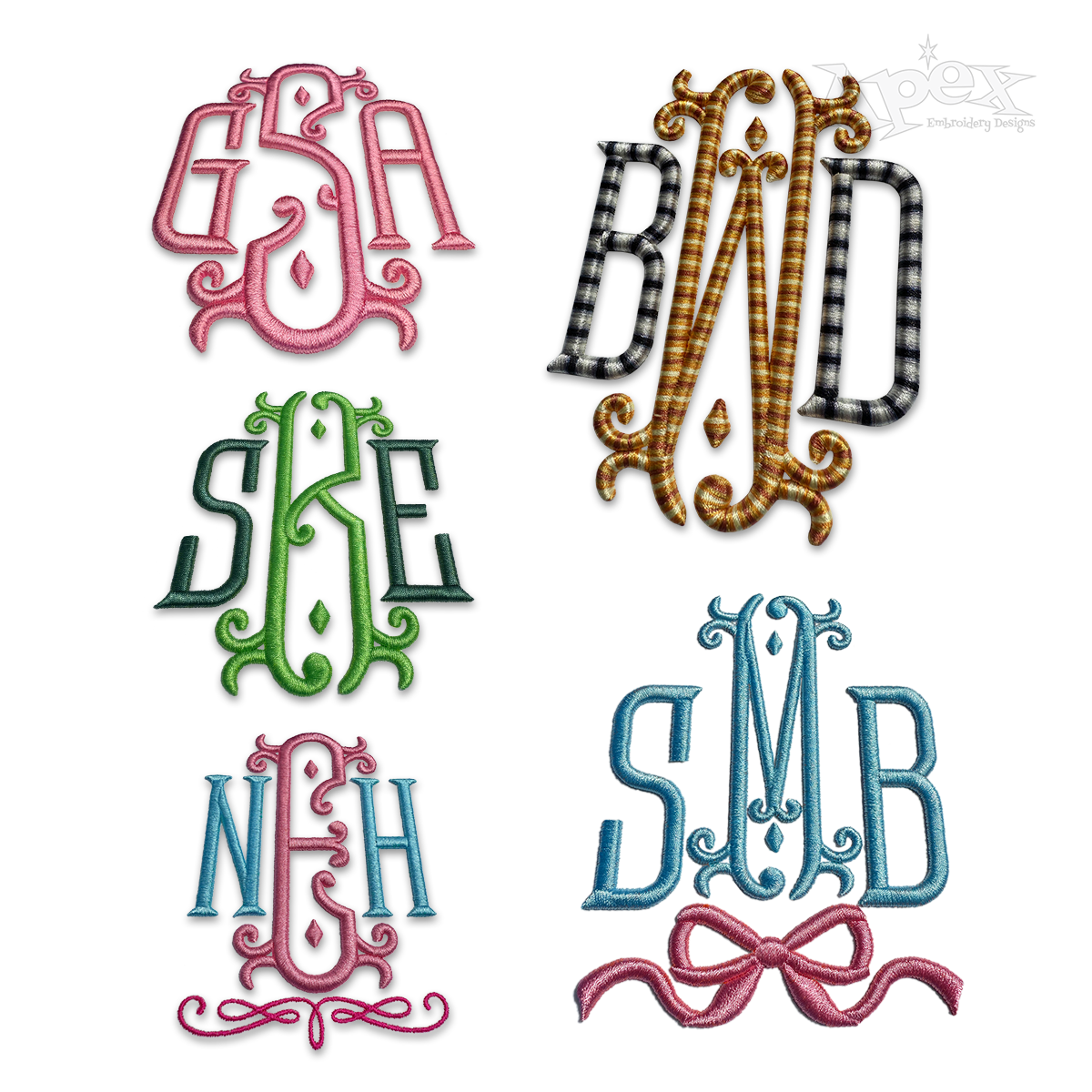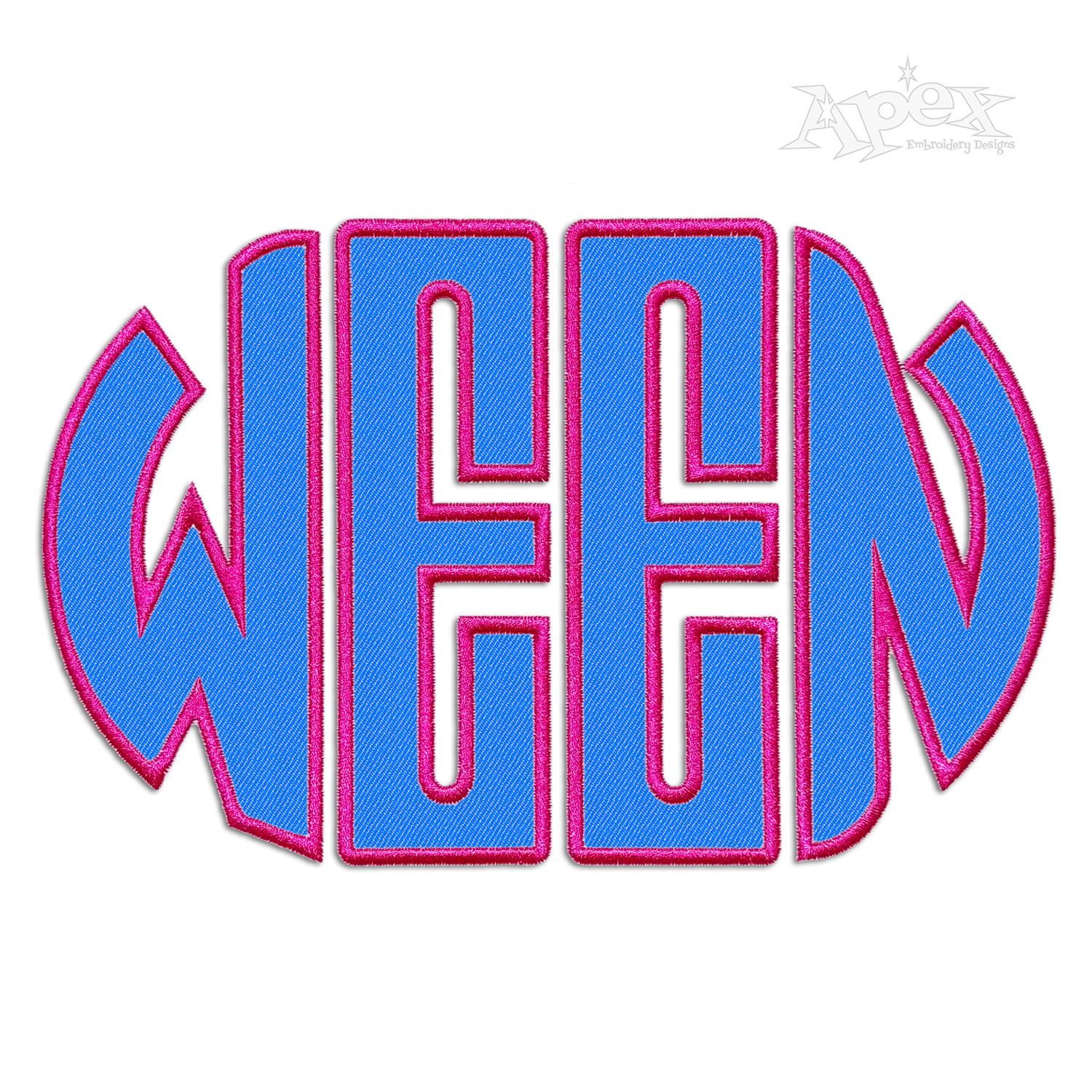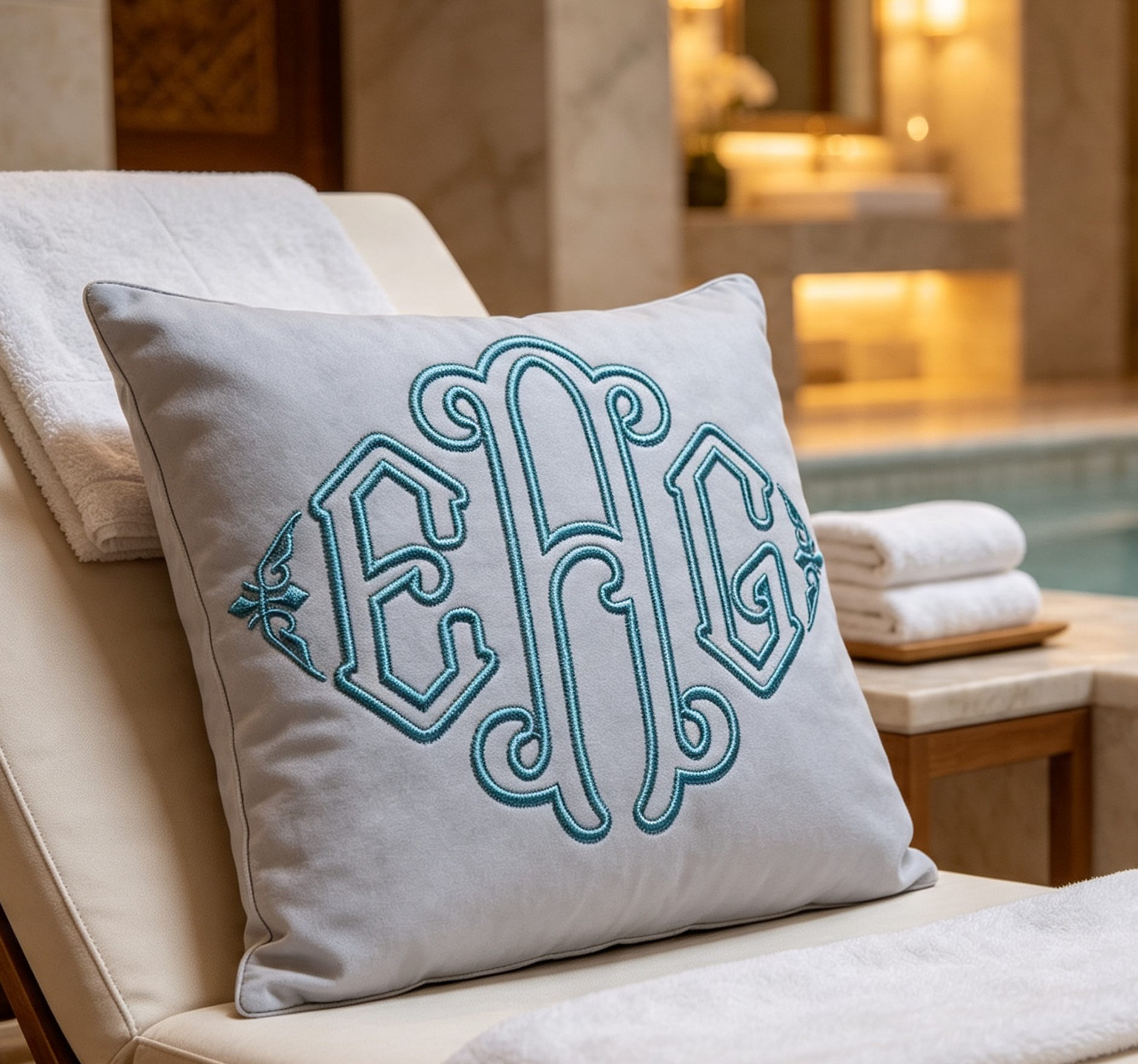
If you are choosing embroidery monogram fonts, you are probably not looking for “just letters.” You need initials that stitch cleanly, read clearly, and match the feeling of the item. Apex gives you monogram styles for almost every kind of project: classic towels, baby blankets, bridal robes, boutique bags, school gifts, applique shirts, and bold personalized pieces.
Embroidery monogram fonts are digitized letter designs used to stitch initials onto fabric items such as towels, robes, bags, shirts, blankets, linens, and gifts. They can be single-letter, 3-letter, circle, applique, script, floral, stacked, split, or decorative styles, giving makers a ready-to-use way to personalize projects with clean, balanced machine embroidery lettering.
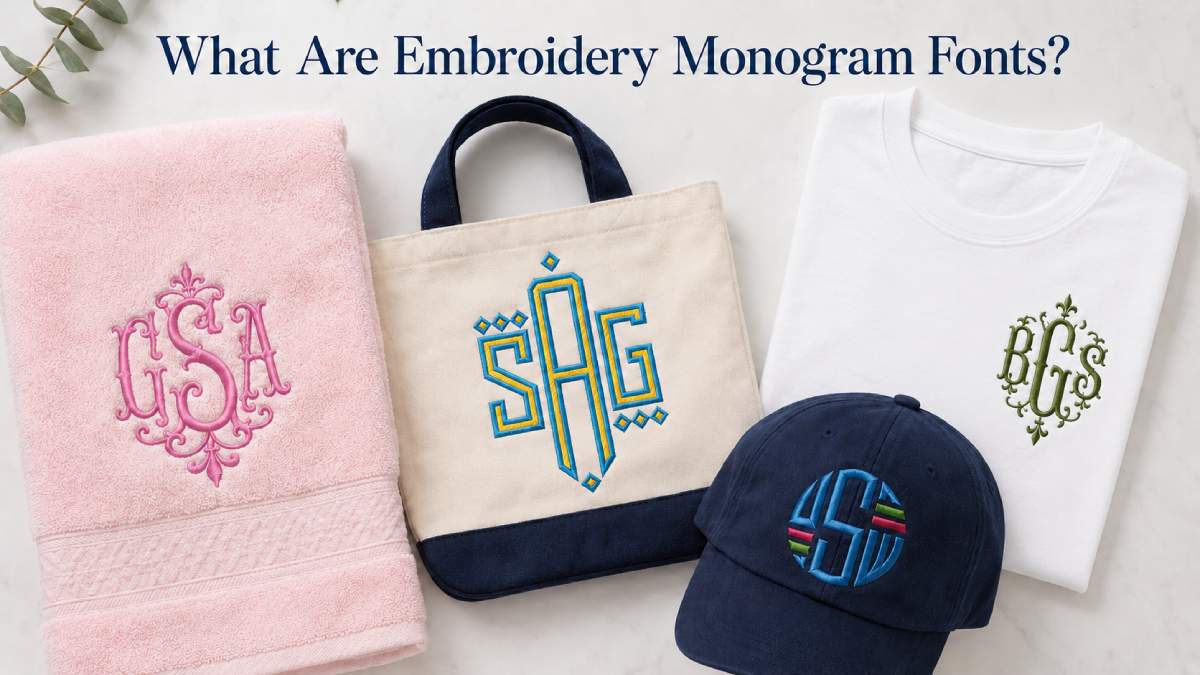
Monogram fonts are often grouped by how the initials are arranged:
Classic and interlocking monogram fonts are for projects that need a more traditional personalized look.
These are the monograms people expect to see on robes, bath towels, tote bags, linens, wedding gifts, family items, and keepsake pieces.
This group should not be framed as “only 3-letter monograms,” even though many interlocking designs work beautifully for that layout.
The main feature is the connected, polished shape. The letters feel designed together, not simply placed side by side.
Apex styles to feature here:
Cassidy 3-letter Interlocking Monogram Machine Embroidery,
Bold Vine Interlocking Monogram Embroidery Font,
Victoria Monogram Embroidery Font.
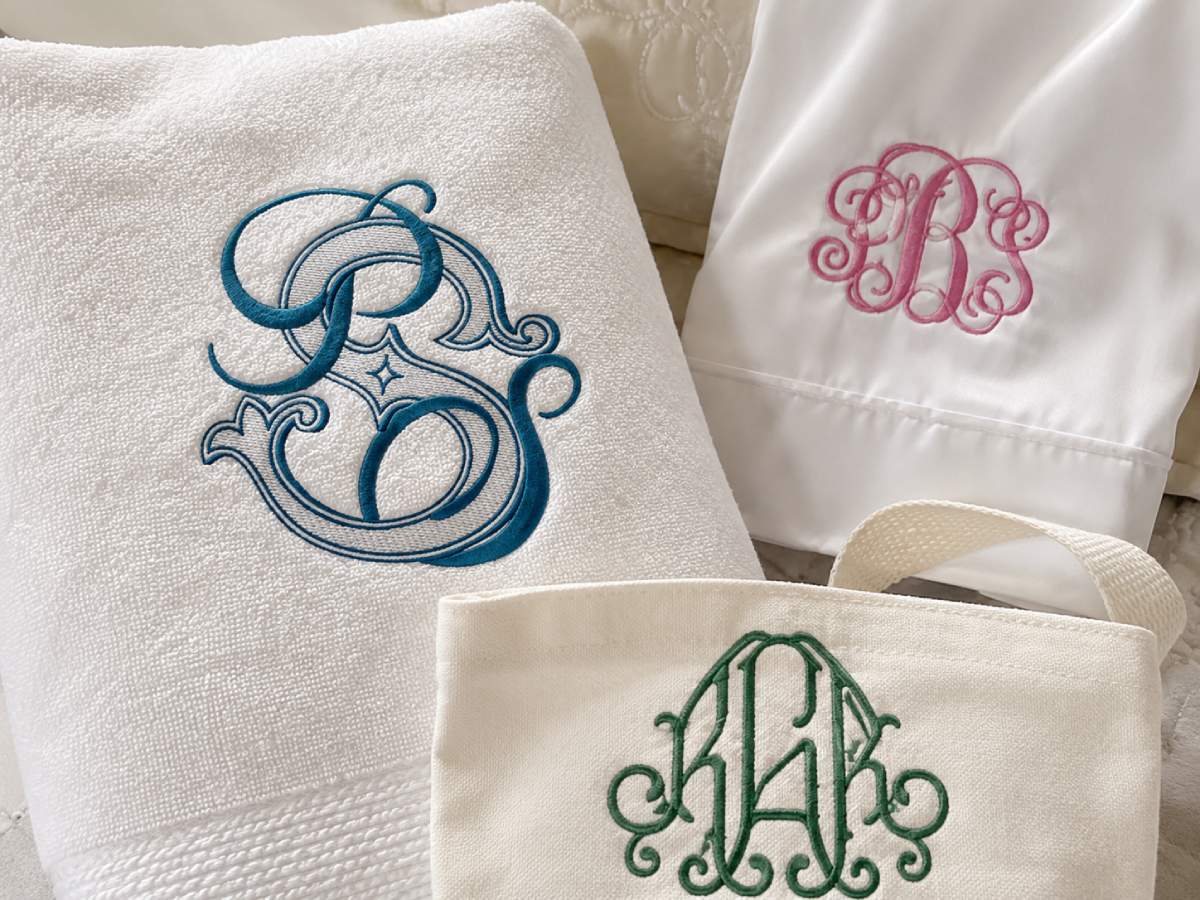
Circle monogram embroidery fonts are popular because they already have structure.
The round shape helps the initials feel centered and balanced, which makes them useful for bags, towels, shirts, backpacks, patches, school items, and boutique gifts.
This is one of the most practical groups in the Apex monogram collection. A circle layout is easy for customers to understand. They can picture where the initials go before they even choose thread colors.
Apex styles to feature here:
Round Modern Monogram Embroidery Font
Corin Circle Monogram Embroider Font
Tall Circle Monogram Embroidery Font
Round Monogram Accents Embroidery Font
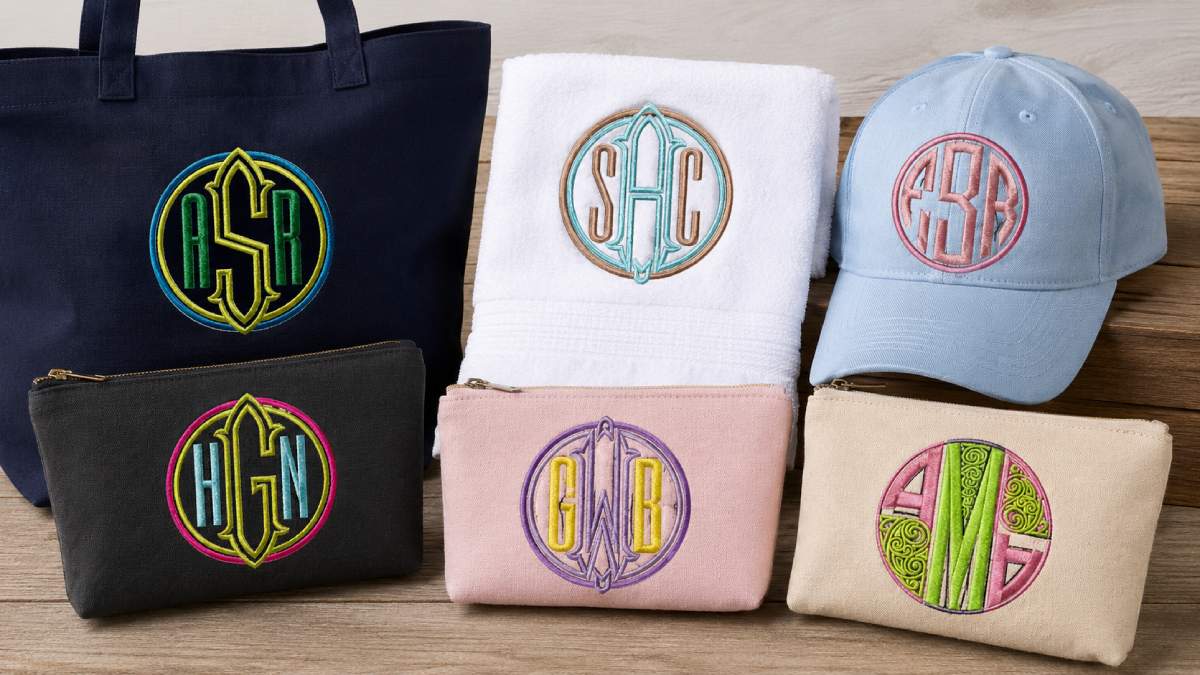
Applique monogram embroidery fonts are ideal when the letter needs to be larger, more colorful, or more playful.
Instead of filling the whole letter with thread, applique lets fabric become part of the design. That gives the maker room to use gingham, florals, polka dots, school colors, holiday prints, or baby-themed fabric.
This group works especially well for kids’ shirts, baby blankets, birthday outfits, beach towels, tote bags, nursery items, and boutique products. It is also useful when you want a large initial without making the design feel too heavy.
Apex styles to feature here:
Shirley Monogram Applique Embroidery Font
Nola Applique Embroidery Font
Boat Monogram Fill and Applique Embroidery Font
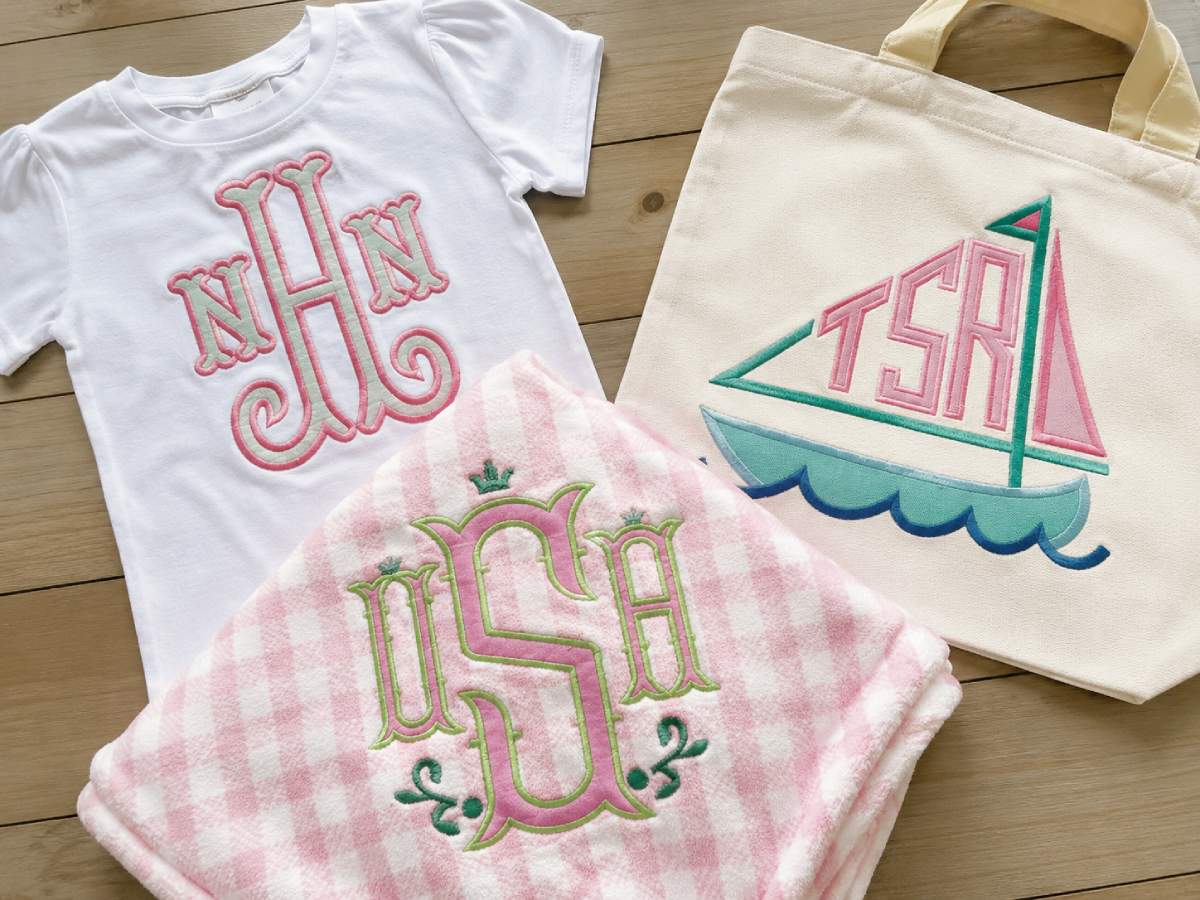
Floral, vine, leafy, and fleur monogram fonts soften the whole project. They are still initials, but the extra detail makes them feel more graceful.
This group works well for bridal robes, baby blankets, guest towels, spring gifts, nursery decor, pillows, keepsakes, and feminine boutique items.
Leafy designs feel natural. Fleur styles feel more formal. Bamboo and pagoda-inspired monograms bring a more decorative, themed look.
Apex styles to feature here:
Leafy Monogram Embroidery Font
Regal Fleur Monogram Embroidery Font
Royal Fleur Monogram Embroidery Font
Stylish Bamboo Monogram Embroidery Font
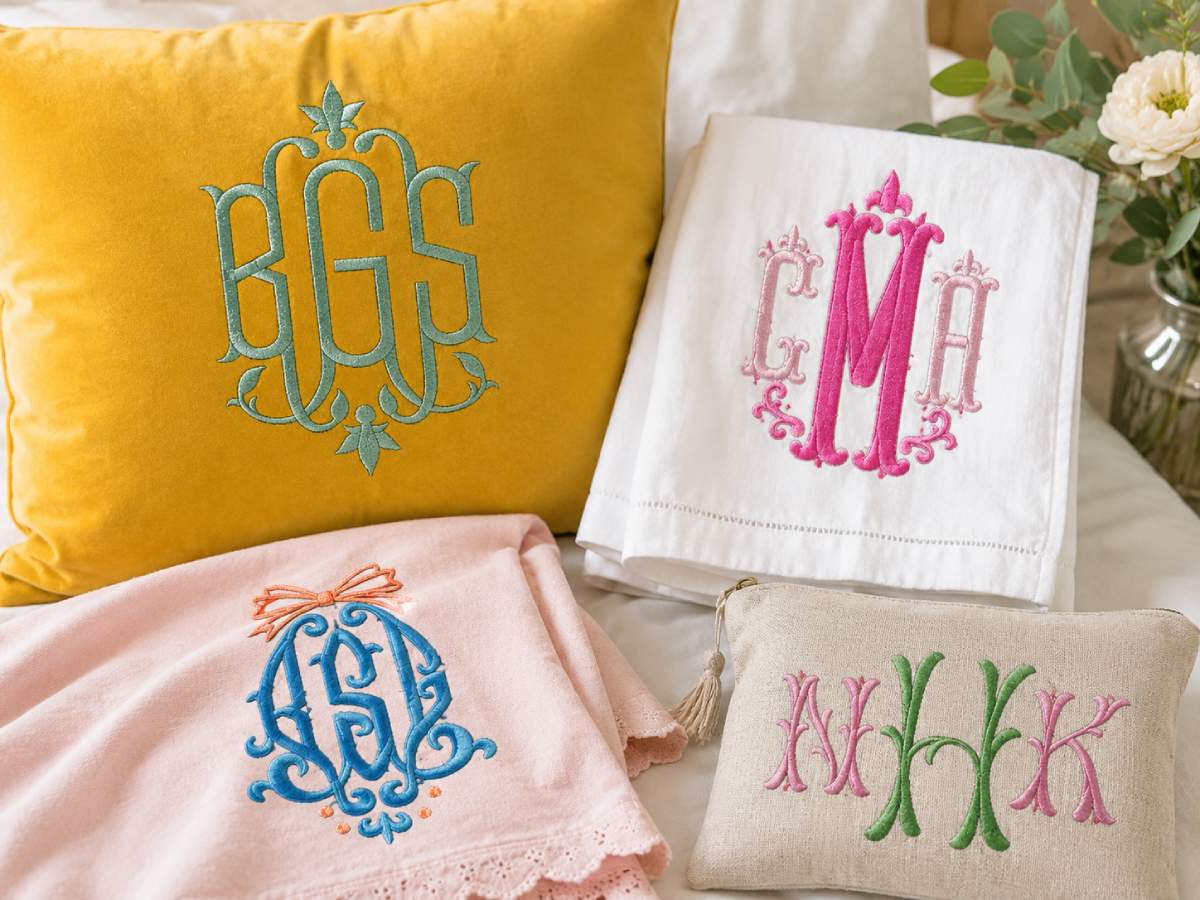
Fishtail and diamond monogram fonts are not background details. They are for projects where the initials become the main design.
This group is useful for boutique bags, shirts, towels, school gifts, statement accessories, and personalized items that need more shape.
Fishtail monogram embroidery fonts have a stylish, boutique feel. Diamond monogram fonts look more structured and graphic. Both styles need enough space to work well, so avoid squeezing them into a tiny area.
Apex styles to feature here:
Fishtail Monogram Embroidery Font
Diamond King Monogram Embroidery Font
Diamond Dots Square Monogram Embroidery Font
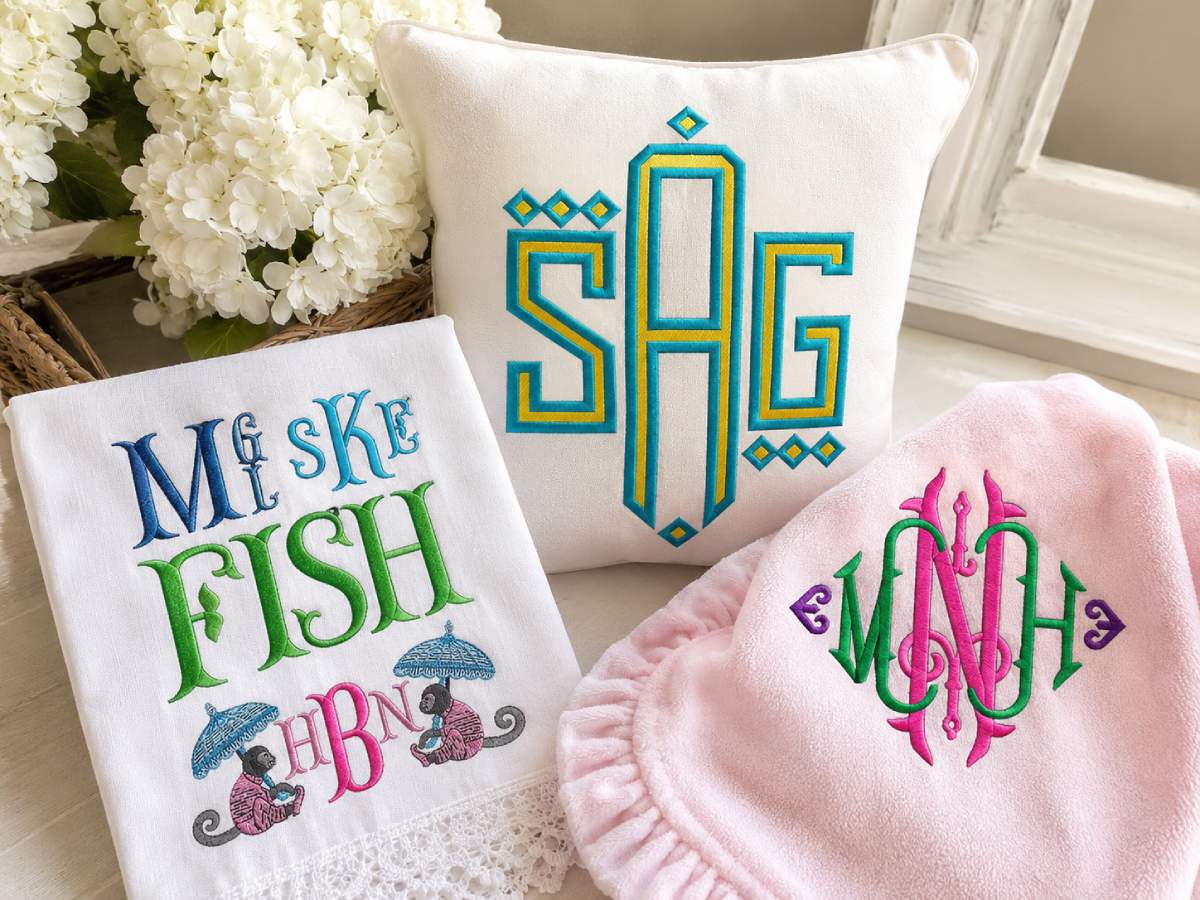
3D puff monogram fonts are made for bolder projects. The raised stitch effect gives the lettering more dimension, so it works best on sturdier blanks such as caps, sweatshirts, bags, sports accessories, and statement pieces.
This style is not the quiet choice. It is better when the customer wants the monogram to pop, especially on casual wear, team items, or accessories with a stronger look.
Apex styles to feature here:
Heart Monogram 2-color 3D Puff Embroidery Font
Round Circle Lined 3D Puff Monogram Font
Vienna Monogram 3D Puff Embroidery Font
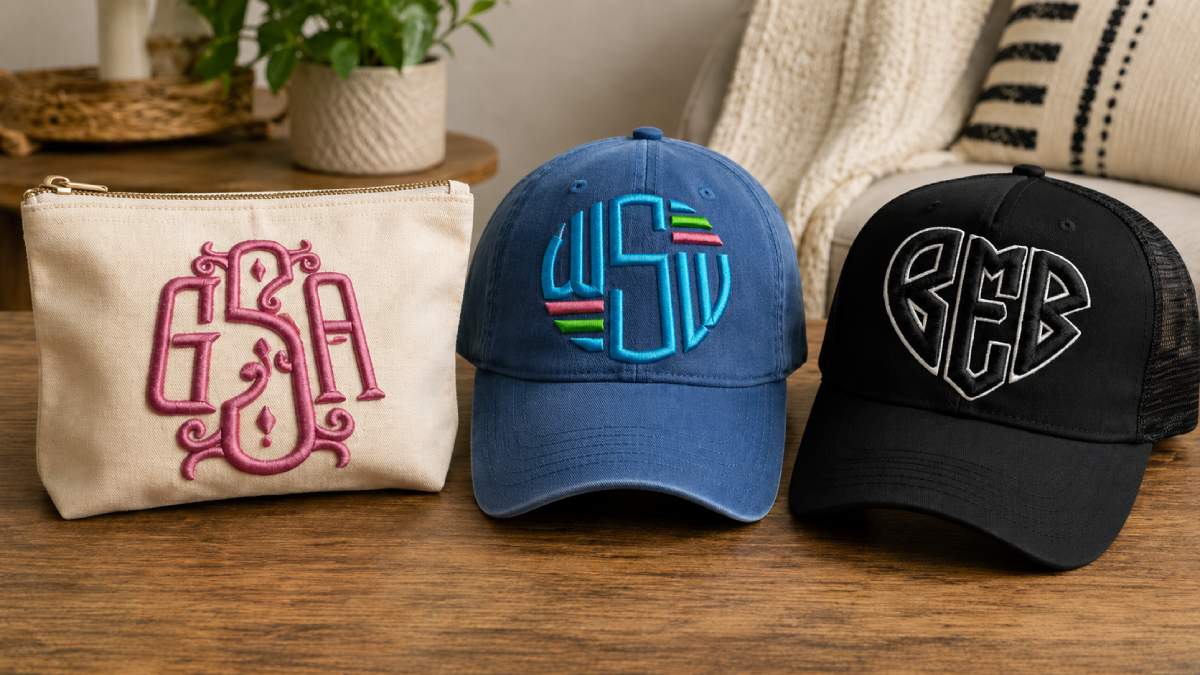
The charm of embroidery monogram fonts is that they personalize without overexplaining. A monogram does not need a full name, a slogan, or a large graphic to make the item feel custom. You can use Embroidery Monogram Fonts: